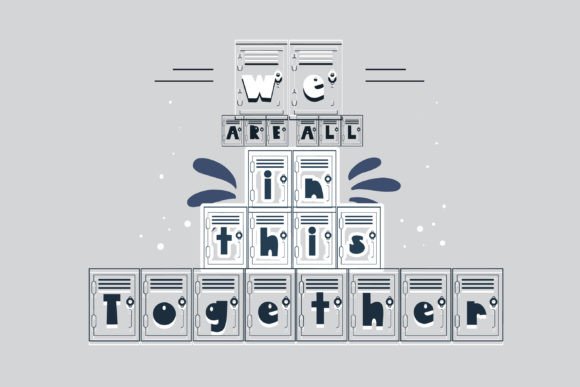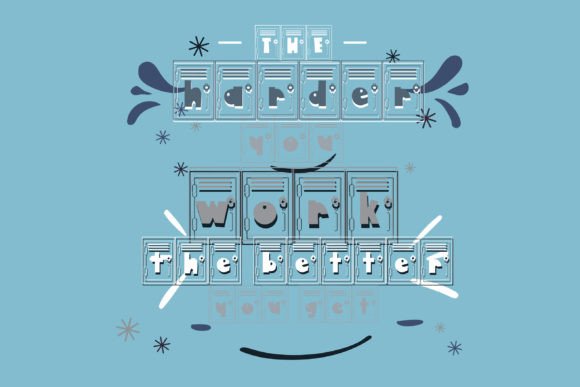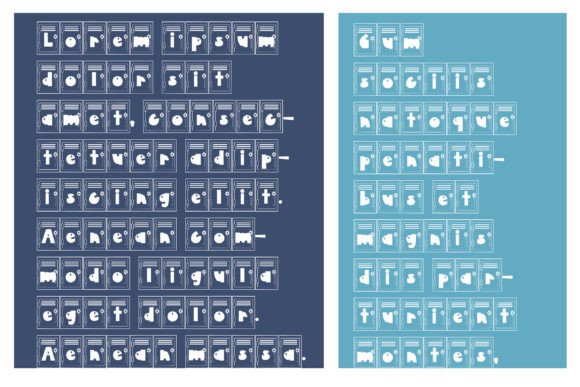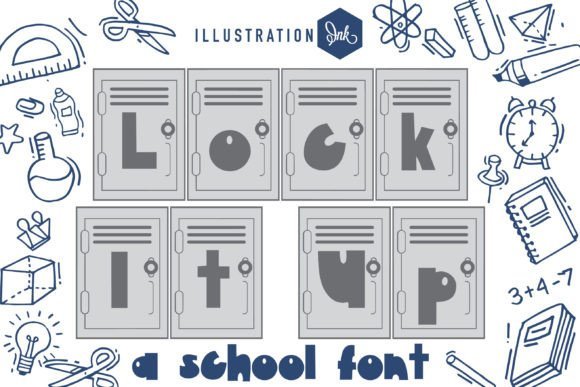
Introduction to Lock It Up Font
Lock It Up font is a charming and clever sans serif typeface that playfully arranges letters within school lockers.
This nostalgic design brings a touch of scholastic nostalgia to your projects, reminiscent of passing notes and hallway conversations Whether for educational materials or fun creations, Lock It Up adds a unique twist that’s sure to capture attention and evoke fond memories of school days.